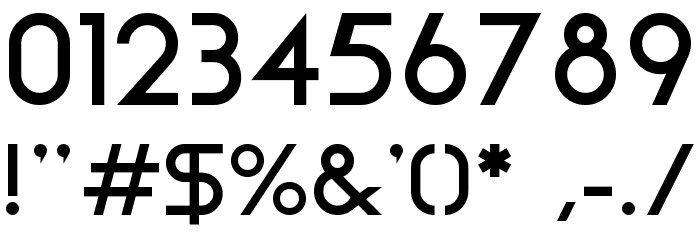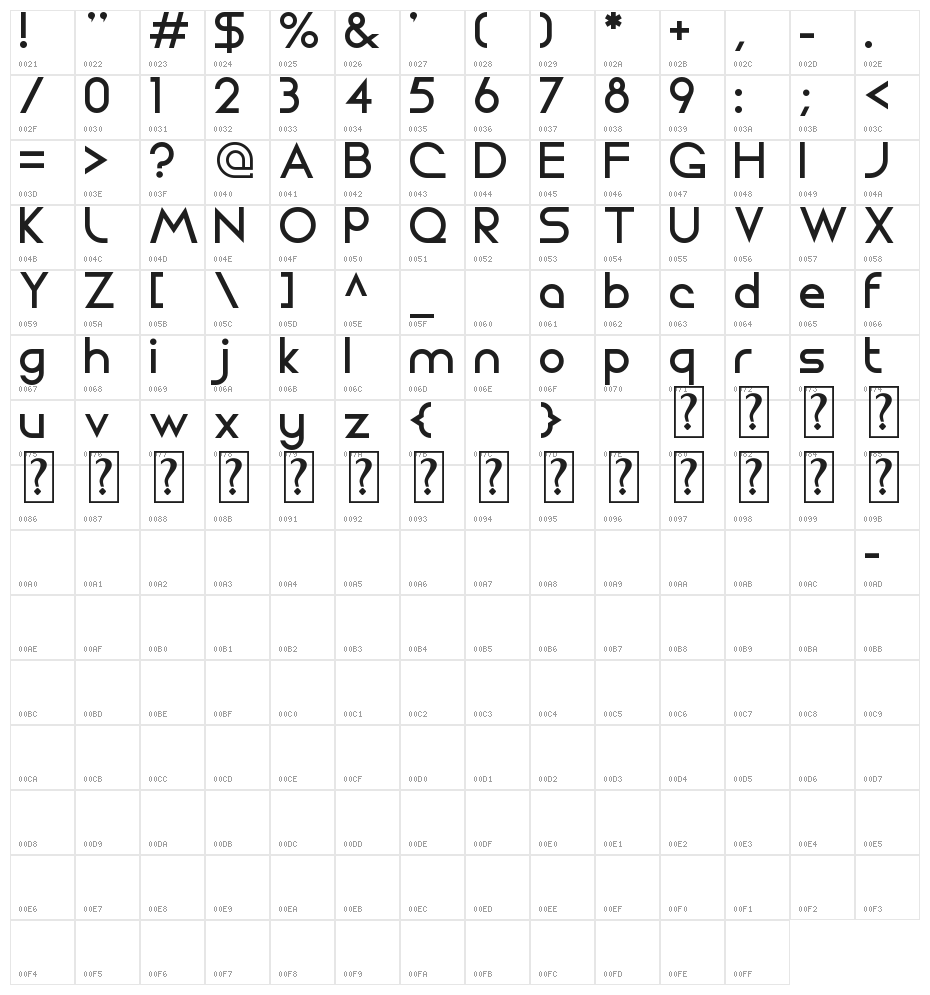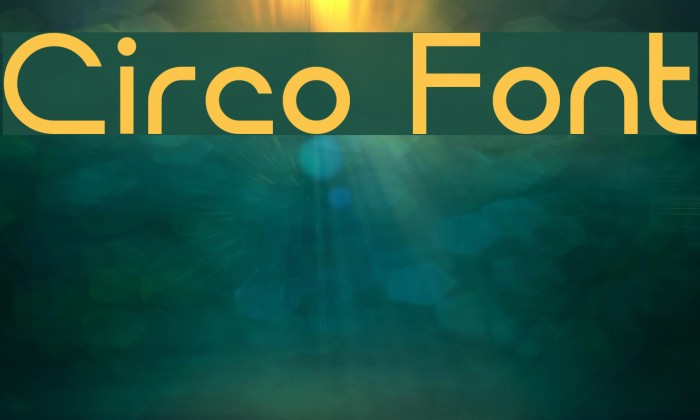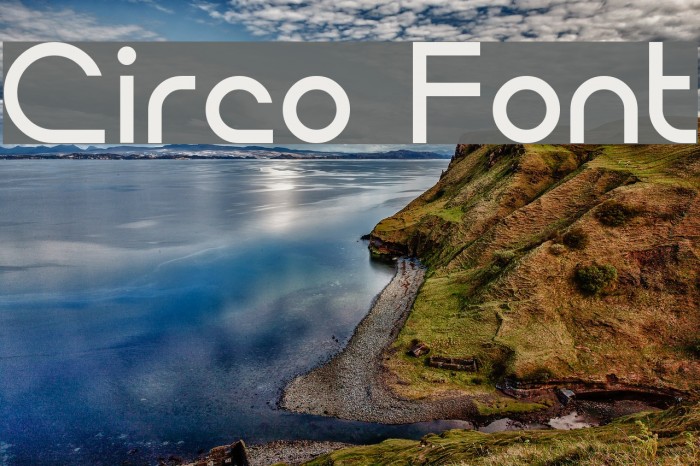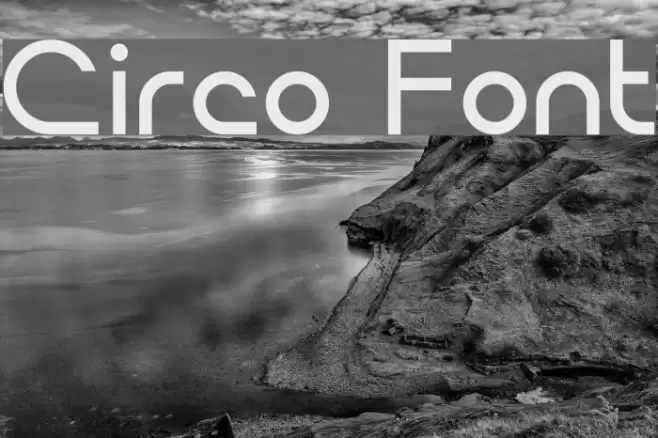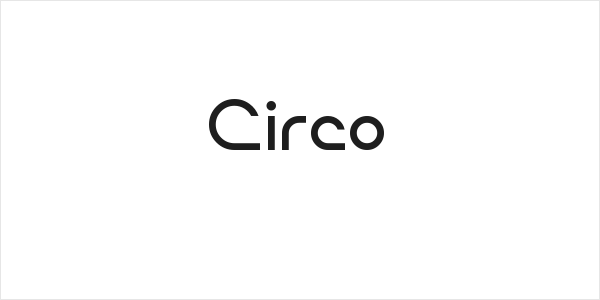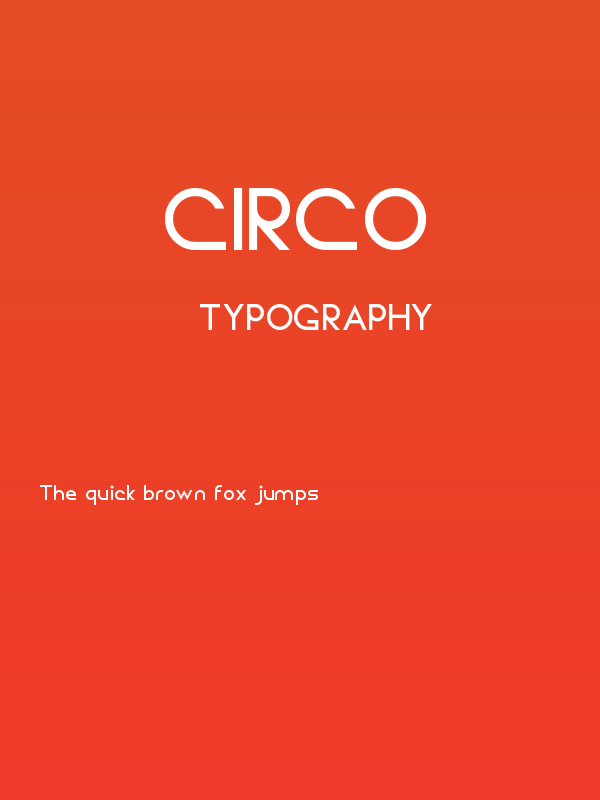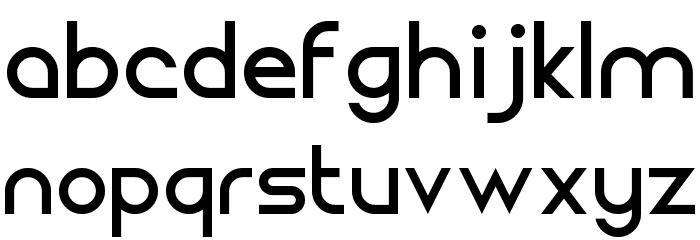
Circo Font
Circo Description
This font features a modern and geometric design, characterized by clean lines and a minimalist aesthetic. The uppercase letters are bold and angular, with a distinct sharpness that gives them a futuristic feel. The lowercase letters maintain a consistent roundness, providing a harmonious balance between the two cases. Numbers and special characters are designed with the same geometric precision, ensuring uniformity across all elements. The overall appearance is sleek and contemporary, making it suitable for a variety of digital and print applications.
| Proposed Projects | Ideal for tech branding, digital interfaces, modern advertising, and minimalist design projects. |